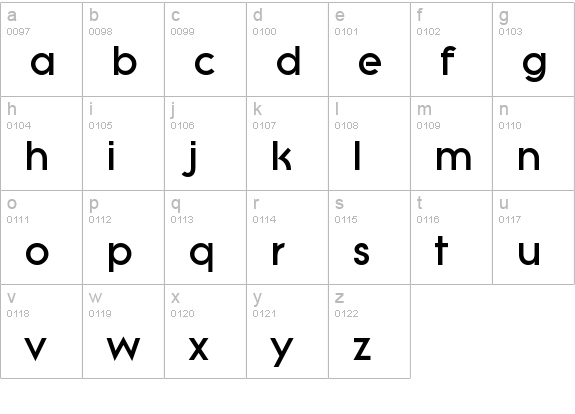
Lithe ExtraBold is an extra-heavy, attention-grabbing variant in the Lithe typeface family \xE2\x80\x94 well suited to high-impact headlines, posters, and bold branding.
Introducing Lithe ExtraBold font - a sleek and modern typeface designed to make a bold statement. With its clean lines and strong presence, Lithe ExtraBold is perfect for headlines, logos, and any design project that requires a touch of sophistication. This versatile font exudes confidence and style with its extra bold weight, making it ideal for capturing attention and making a lasting impression. Whether you're creating posters, branding materials, or editorial designs, Lithe ExtraBold will elevate your work to the next level. And the best part? Lithe ExtraBold is available for free download at FontsMarket.com. So go ahead and give your projects a contemporary edge with this striking font that is sure to stand out from the crowd.